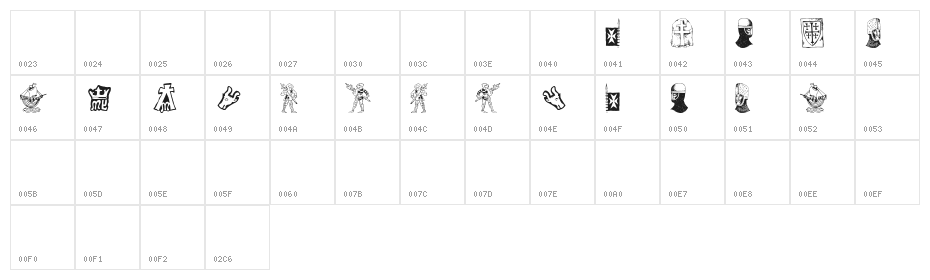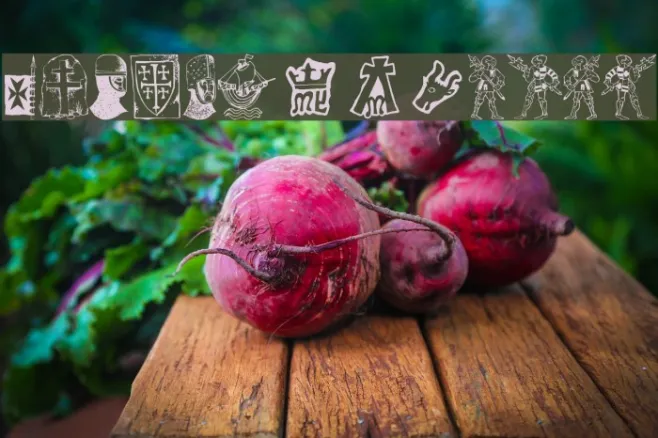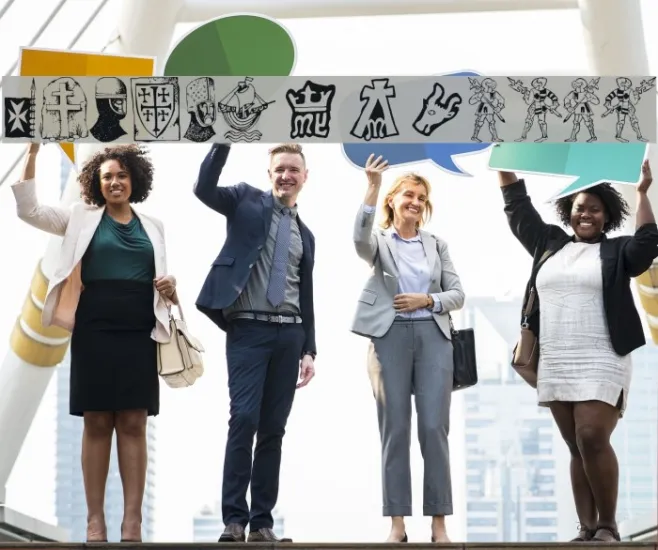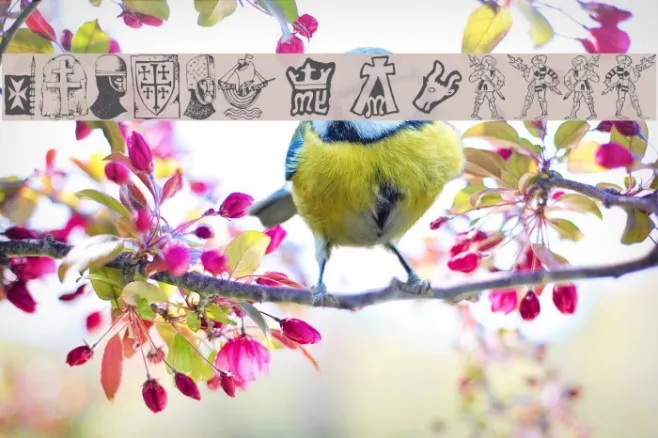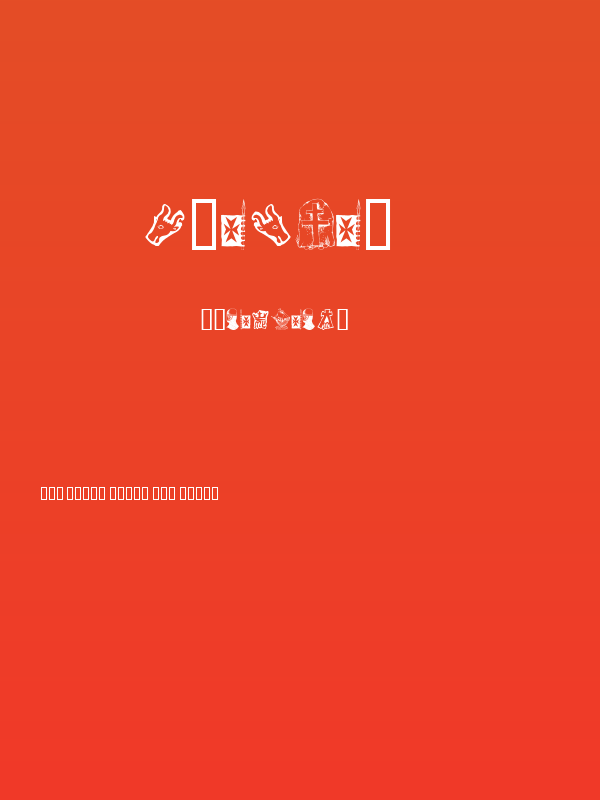
Ivanbats Font
Ivanbats Description
This font is a decorative and thematic typeface that features medieval and knightly elements. Each character is intricately designed with motifs reminiscent of heraldry, armor, and historical insignia. The uppercase letters are bold and ornate, while the lowercase letters maintain a consistent style, offering a cohesive look. The numbers and special characters are equally detailed, making this font ideal for projects that require a historical or fantasy theme. The overall design is highly decorative, with a focus on capturing the essence of medieval times.
Use CaseLogos, Posters, Themed Events
Proposed ProjectsIdeal for fantasy book covers, medieval-themed event posters, historical reenactment flyers, and role-playing game graphics.